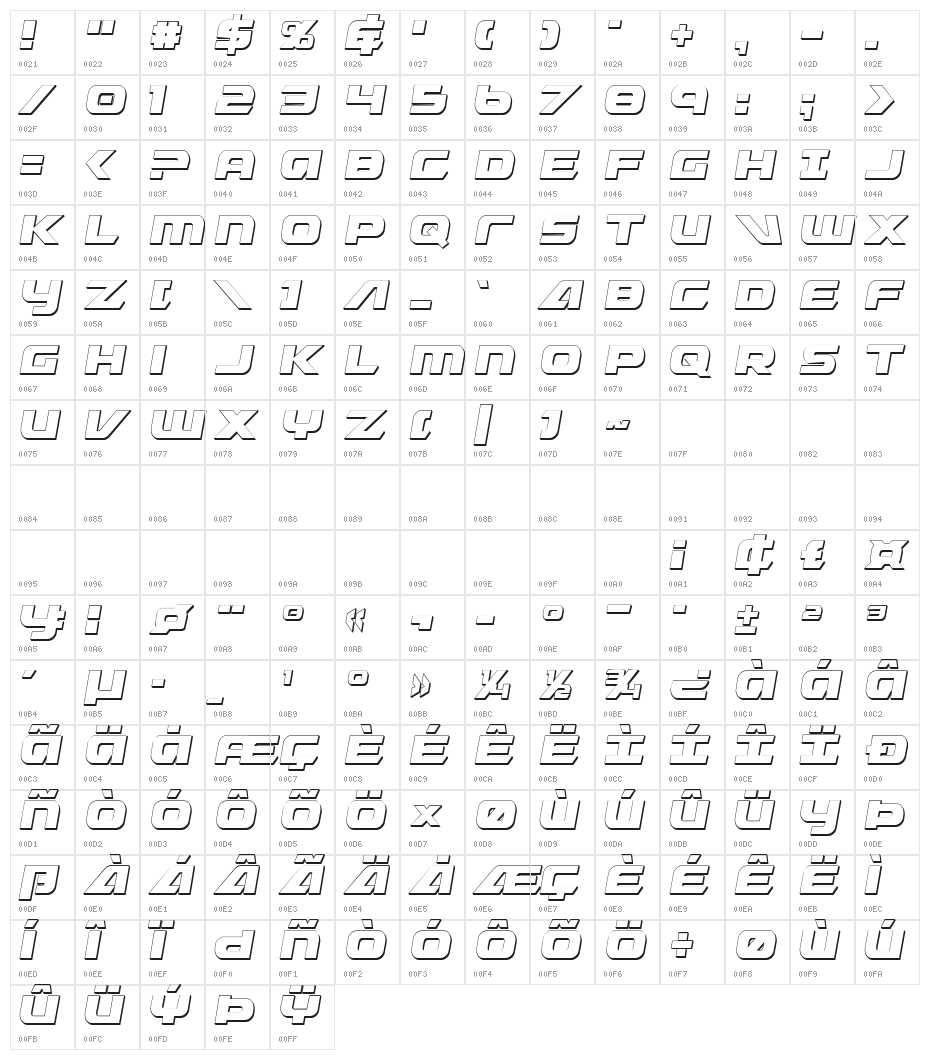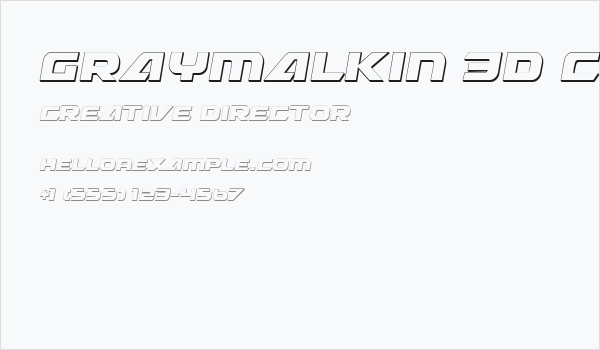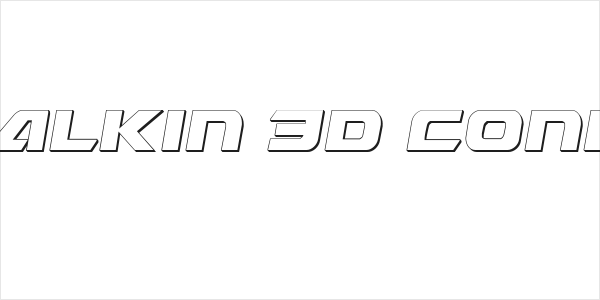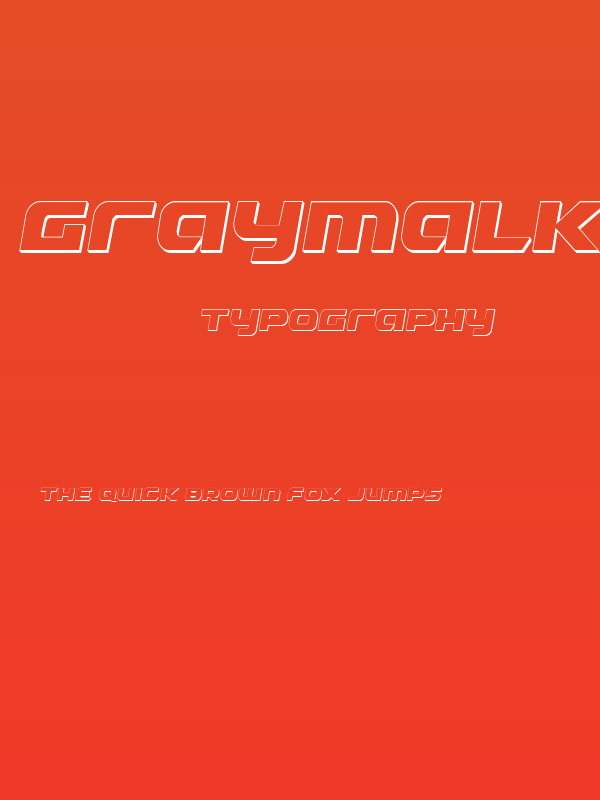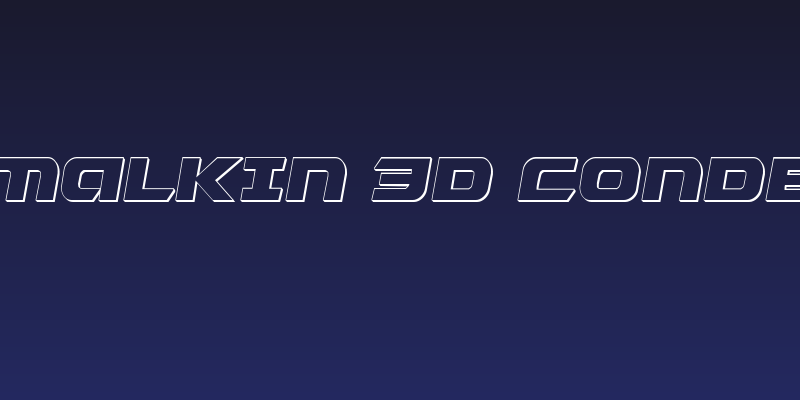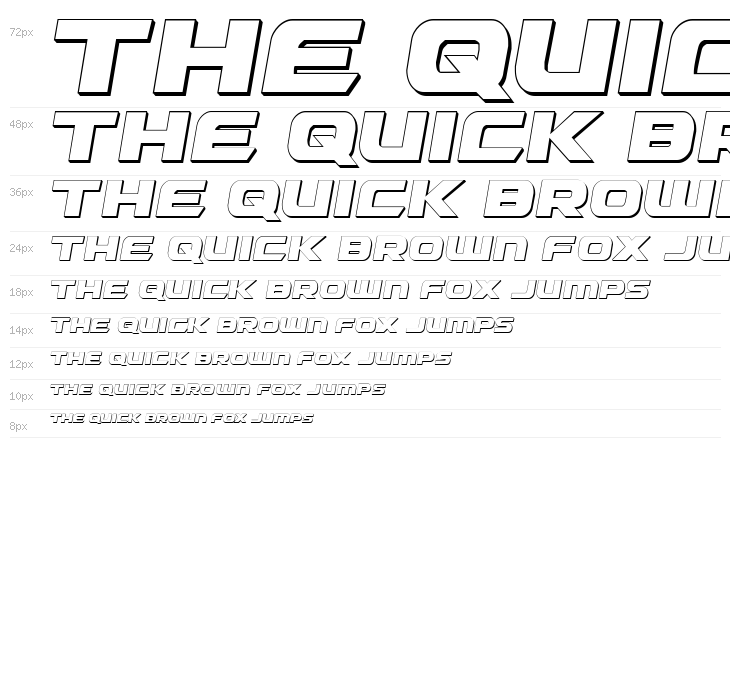
Graymalkin 3D Condensed Font
Graymalkin 3D Condensed Description
This font features a bold, three-dimensional appearance with a condensed structure, creating a striking visual impact. The characters are outlined with a shadow effect that gives them depth and a futuristic feel. The uppercase and lowercase letters maintain a consistent style, with angular edges and a geometric design. The numerals and special characters follow the same aesthetic, ensuring uniformity across all glyphs. This font is ideal for projects that require a modern and dynamic look, such as technology-related branding or sci-fi themed designs.